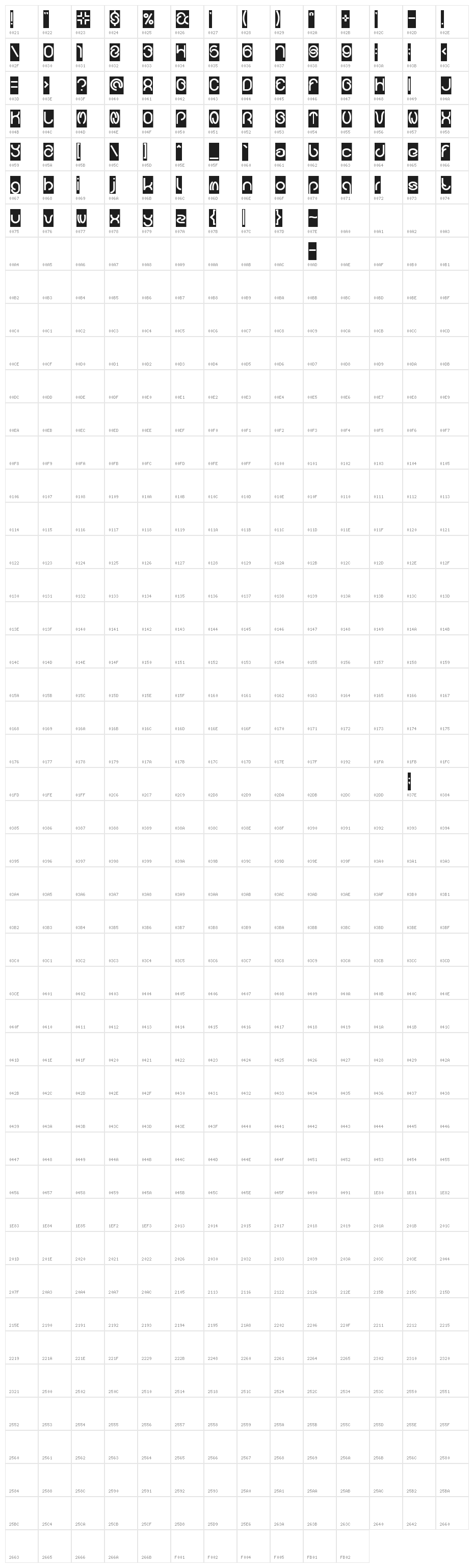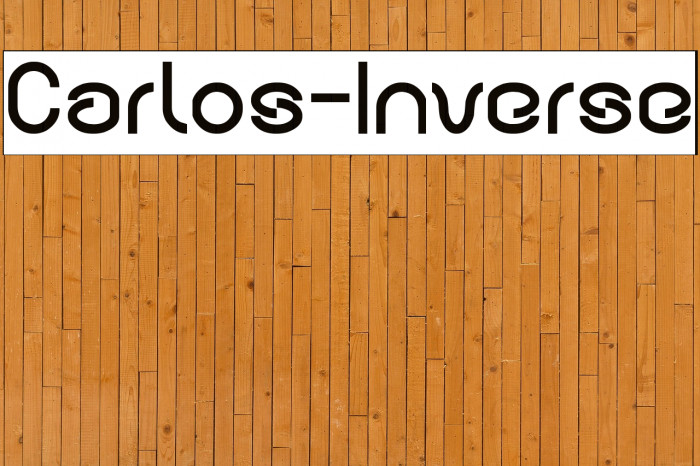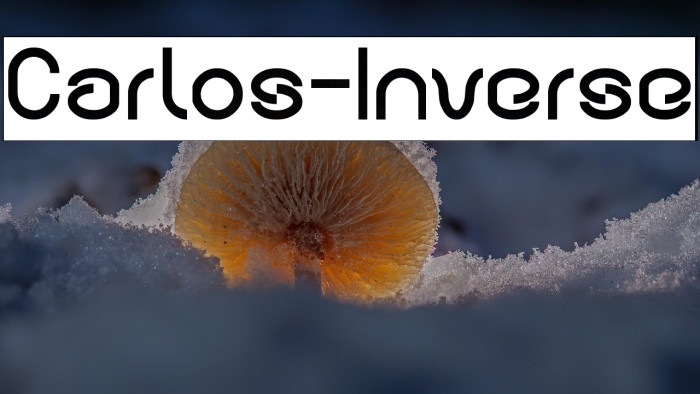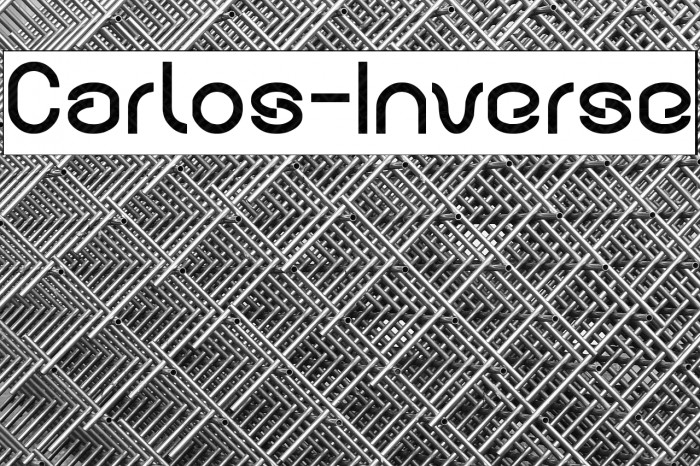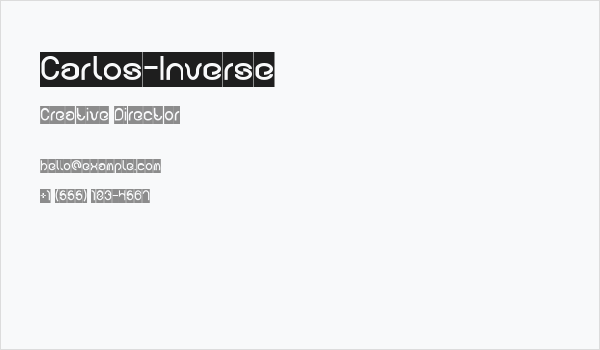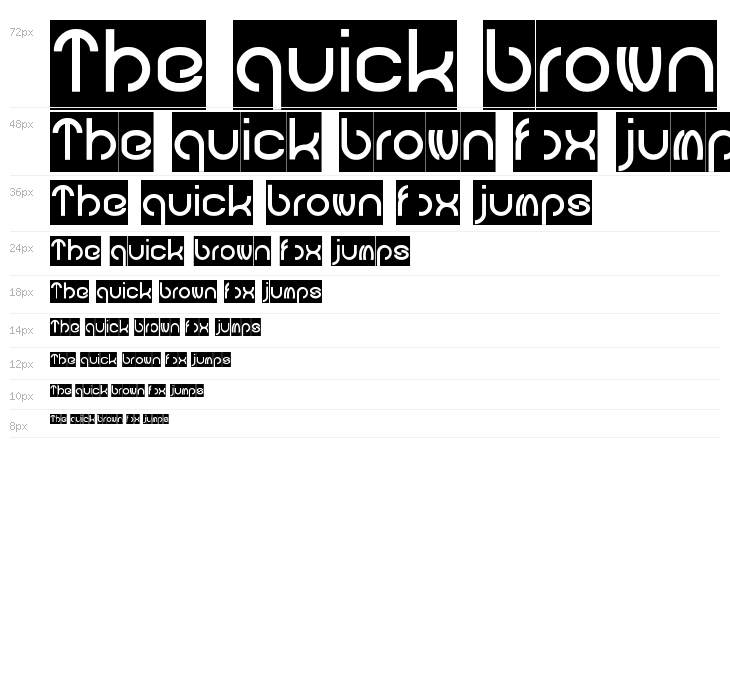
Carlos-Inverse Font
Carlos-Inverse Description
This font features a unique and modern design with a futuristic flair. The characters are composed of bold, rounded strokes with a consistent width, creating a cohesive and harmonious appearance. The letters have a distinctive geometric style, with some characters incorporating unexpected curves and angles that add to its contemporary aesthetic. The numerals and special characters follow the same design principles, ensuring uniformity across all glyphs. This font is particularly eye-catching due to its high contrast between the thick strokes and the negative space, making it stand out in any design context.
| Use Case | Logos, Headlines, Posters |
| Proposed Projects | Ideal for branding, logos, posters, and any project requiring a modern and futuristic look. |